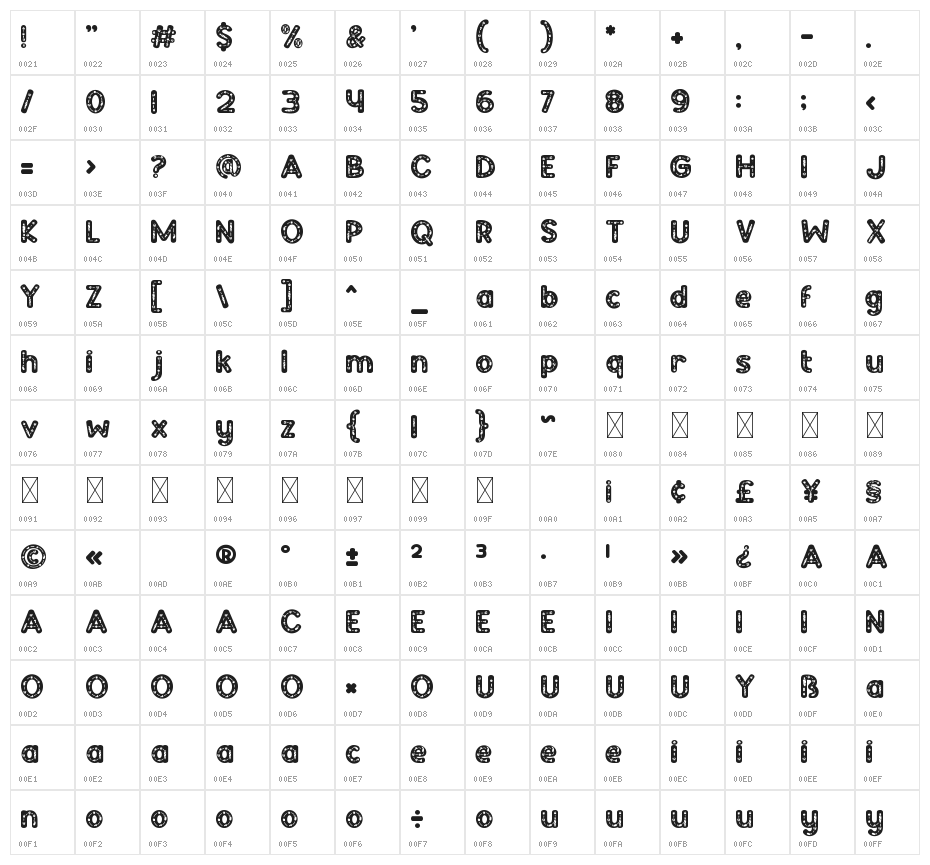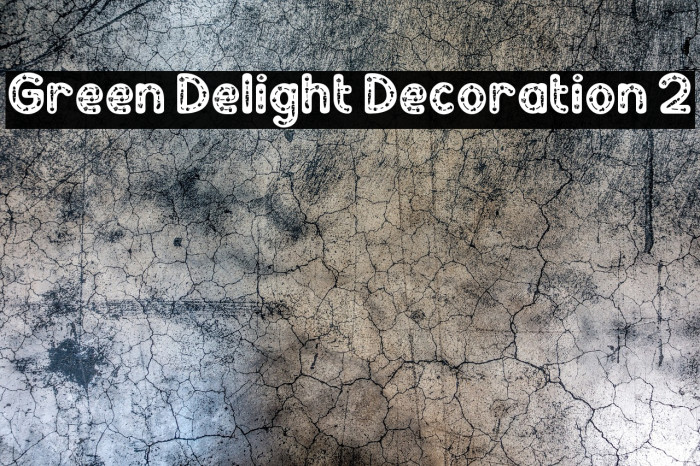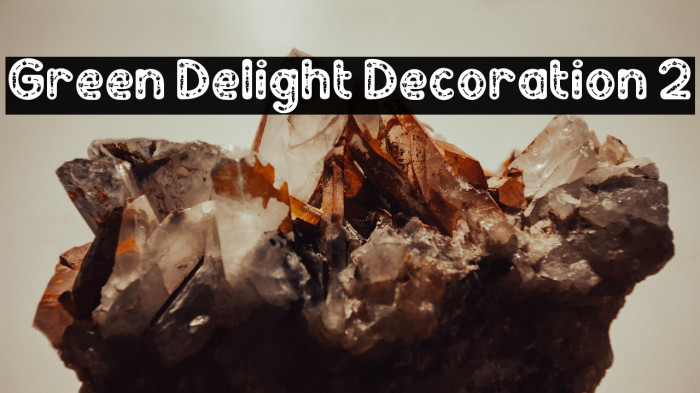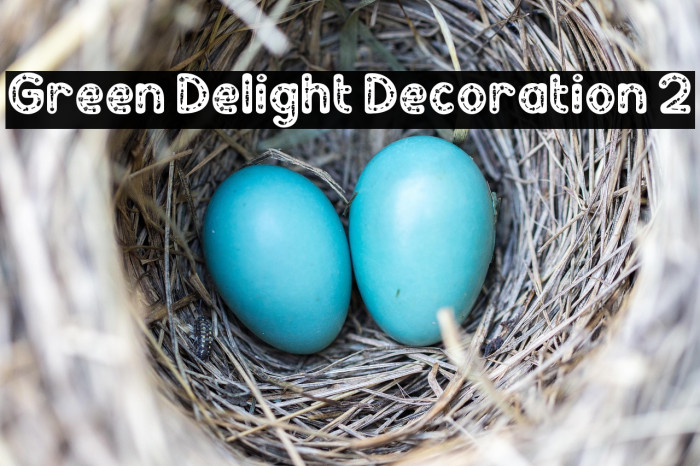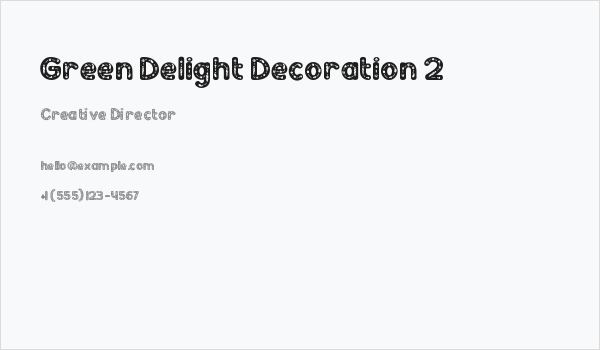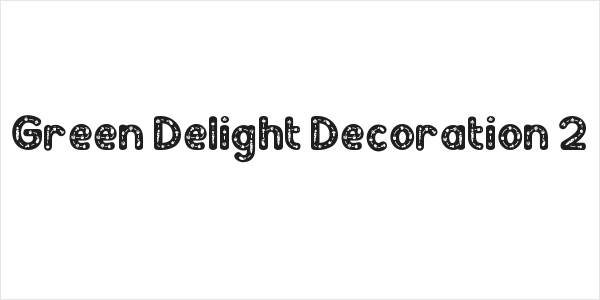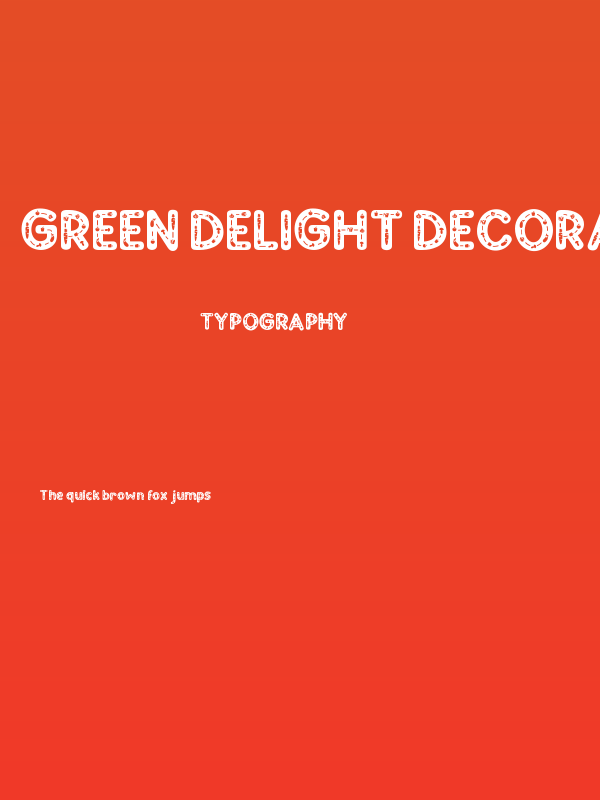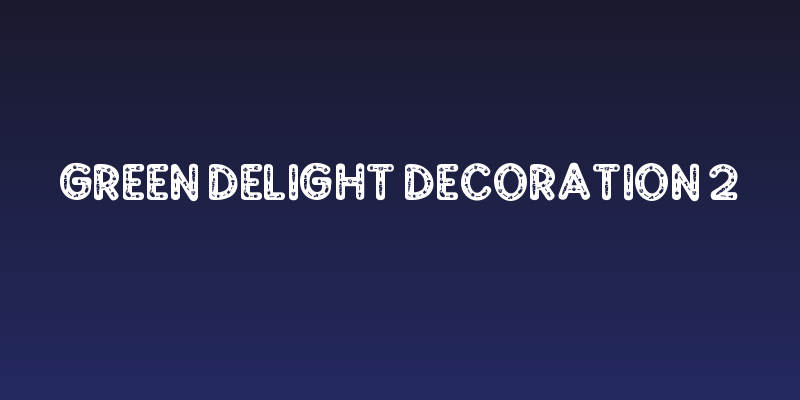
Green Delight Decoration 2 Font
Green Delight Decoration 2 Description
This font features a playful and decorative style, characterized by its bold, rounded letters filled with intricate leaf patterns. The design gives a lively and organic feel, making it ideal for projects that require a touch of nature or whimsy. The uppercase and lowercase letters maintain a consistent style, with numerals and special characters following suit. The font's unique patterning within each character adds a layer of visual interest, making it stand out in any design context.
| Proposed Projects | Ideal for eco-friendly branding, children's book covers, garden event posters, and nature-themed invitations. |